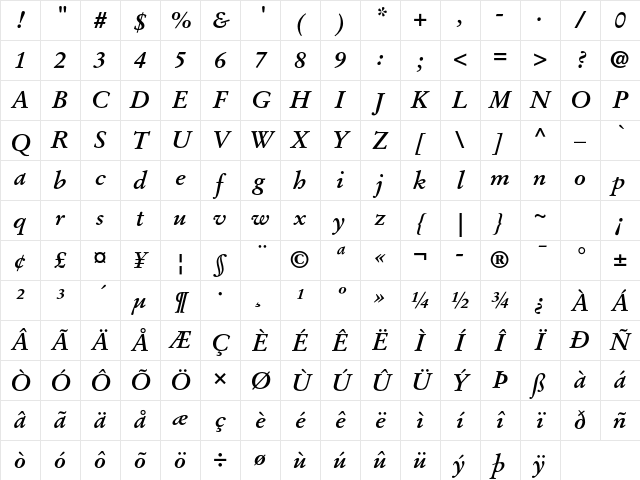
Stempel Garamond LT Std Bold Italic
Designer: Stempel Staff
Design Context for Stempel Garamond LT Std
Stempel Garamond LT Std is a composed and adaptable typeface that performs quietly and consistently across a wide range of design contexts. The slanted form adds forward momentum and visual energy. Its bold stroke weight gives it real presence on the page.